For a long time I've been using DejaVu Sans Mono as my programming font. I've yet to find a better font.
But a little while ago I discovered Mozilla's Fira, which looks very nice for code. So I decided to give it a try in Emacs.
Unfortunately, when I use it in Emacs, the line spacing blows up and reduces the number of lines I can see by about 10.
I've tried (setq line-spacing 0) and different combinations of things like (set-frame-font (font-spec :name "Fira Mono" :width 'normal :height 100)), but no matter what I do, the excessive line spacing remains. (It's not possible to use negative line-spacing values in Emacs, unfortunately, which would seem like the obvious solution.)
It doesn't seem to be a bug in the font though, because when I use Fira Mono in Kate at the same size, the line spacing is what I would consider normal, and apparently about the same as the Emacs line spacing with DejaVu Sans.
Is this a bug in Emacs? Is there any way to fix this?
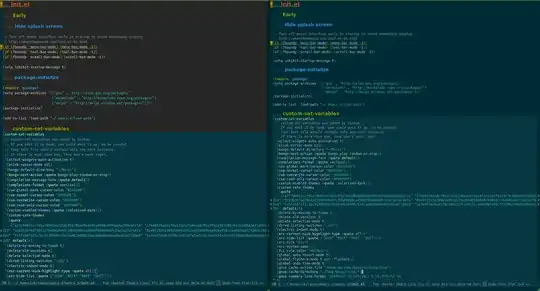
Left: Emacs Fira Mono Right: Emacs DejaVu Sans Mono Emacs Fira Mono vs. Emacs DejaVu Sans Mono
Left: Emacs Fira Mono Right: Kate Fira Mono Emacs Fira Mono vs. Kate Fira Mono
You could try `--line-spacing=PIXELS` on the command line with `emacs`, but my guess is that that won't help. My crystal ball tells me that line spacing is not inserting any extra pixels and that the problem is with Emacs's display of the font. Does the buffer mode make any difference? (I assume that you've checked `frame-parameters` to see what the font is etc.) – Drew Apr 05 '15 at 00:51
To be honest, to me it looks like DejaVu has not enough spacing, and if you look at the last screenshot with Fira, then you can even see that characters which have descending elements such as g and y are cropped. Other than that, I think that the minimum line height would be calculated based on some TTF parameter, so if you really want to change that, I'd be looking into modifying the TTF (or is it OTF?) file to change the font's metric to allow less leading. – wvxvw Apr 05 '15 at 04:57
What happens if you append `minspace=true` to the FontConfig font definition? E.g. something like `emacs -fn 'Fira Mono:minspace=true'`, or whatever the name of the font. – jch Apr 05 '15 at 19:19
This is not what you want to hear, but I gave up on line spacing about a little over a year ago. Instead, I choose a font I am comfortable with and I set the `:height` and that's it. Emacs doesn't really have good control of distance between lines, and adjusting it just causes more problems. Perhaps a feature request would be appropriate -- e.g., to set distance between lines in pixels and have it work with all fonts. – lawlist Apr 07 '15 at 05:46
• How do Fira and Dejavu compare to each other on Kate? – Malabarba Apr 07 '15 at 17:27
The line height is a property of the font, Emacs' rendering respects the given value. If you force a certain height regardless of the font's property you might end up with cropped characters, like in the screenshot of Fira Mono in Kate (as wvxvw already pointed out). When it comes to proportional fonts I find that Lucida Grande Mono is the most efficient in terms of space while still very readable at small sizes (Droid Sans Mono comes close, but it's less dense). – paprika Apr 08 '15 at 11:47
• @blujay have you tried setting (setq line-spacing .7) in the buffer? When it's float, it reduces line spacing, as opposed adding pixel. If this works in a buffer, then we can probably try set-default and that might solve the problem. – Xah Lee Jul 17 '15 at 07:22
• @XahLee Thanks but that doesn't seem to work. When I run `(setq line-spacing .7)`, the line spacing increases greatly. Then, `(setq line-spacing 1)` causes line spacing to decrease, and finally `(setq line-spacing nil)` resets it to the minimum/default. Even though `C-h v line-spacing` says `If value is a floating point number, it specifies the spacing relative to the default frame line height`, it doesn't reduce it as should be the case. Using Emacs 24.4 on this system. –  Aug 23 '15 at 16:39
Fira Mono v3.2 adjusted the font's line height, which has made it usable by me in Emacs:
• Thanks for the update. That seems a little better, but I still get 4 fewer lines in Emacs with Fira Mono 3.2 than with DejaVu Sans Mono. So, unfortunately, it's still useless. I don't need more space between lines; it doesn't gain me anything. All it does is reduce how much I can see on the screen and make me scroll more, reducing my efficiency and wasting my time. :( Too bad that Mozilla's more concerned with making a font look airy than making it useful. –  Sep 02 '15 at 07:34
Oh, and FYI, there is a [Fira Code](https://github.com/tonsky/FiraCode) in the works with less line spacing. Hopefully it pans out. –  Sep 07 '15 at 13:45
• At the moment, though, it seems to have [a serious problem](https://github.com/tonsky/FiraCode/issues/46) in Emacs. ("Comments can only be edited for 5 minutes." Sigh.) –  Sep 07 '15 at 13:56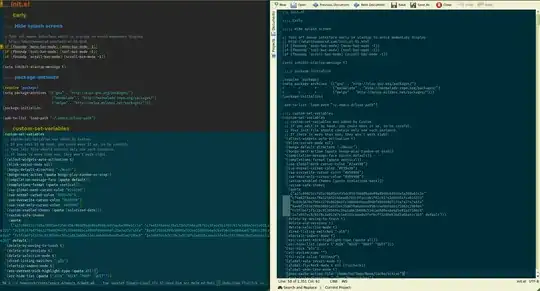